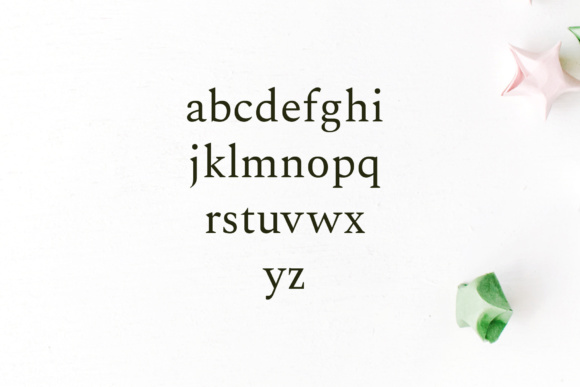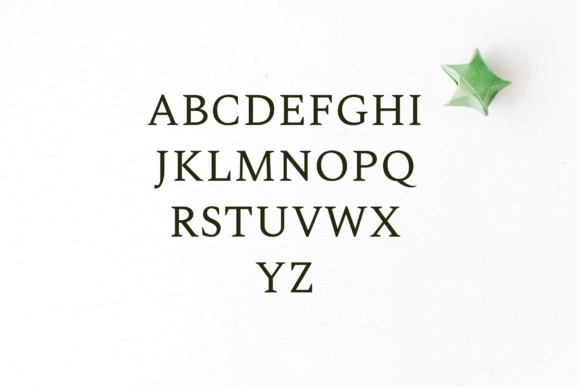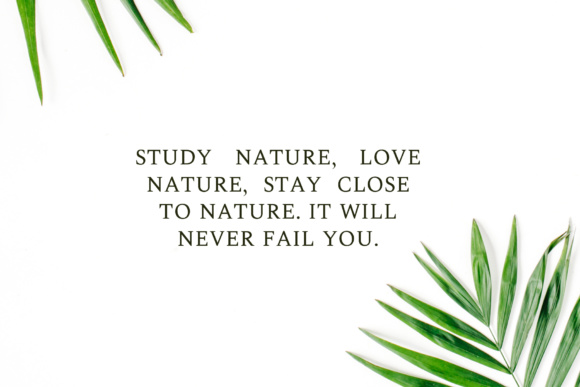
The Ethan Serif Family Pack: A Designer’s Dream Come True
I’ll never forget the time I was working on a logo design project for a high-end fashion brand. My client wanted a font that exuded elegance, sophistication, and a touch of modernity. I scoured the internet, tried countless fonts, but nothing seemed quite right. That was until I stumbled upon the Ethan Serif Family Pack. It was love at first sight! 💕
The Ethan Serif Family Pack is a decorative, beautiful serif font family that consists of 6 weights. It features a unique and modern look & feel, making it perfect for gorgeous logos & titles, layouts & content, or large & small scale. In this article, I’ll share my experience with this stunning font family, its features, and how to make the most of it in your designs.
- ✨ Unique and modern look & feel that sets it apart from other serif fonts
- ✅ 6 weights to choose from, ensuring versatility and flexibility
- 💯 Gorgeous in all caps with a wide-set spacing for a classy look
- 📚 Beautiful on its own in capital and lowercase letters for a timeless feel
While the Ethan Serif Family Pack is an excellent font family, there are a few things to keep in mind:
- ⚠️ Some users may find the font too ornate for certain projects, such as body text
The Ethan Serif Family Pack was designed with inspiration from classic serif fonts, but with a modern twist. The designer aimed to create a font family that would be both elegant and versatile, suitable for a wide range of design applications. The result is a font family that is both timeless and trendy.
| Font Name | Ethan Font |
| What is the Ethan Serif Family Pack? | A decorative, beautiful serif font family consisting of 6 weights, perfect for logos, titles, and content. |
| Is the Ethan Serif Family Pack suitable for body text? | While it’s possible to use it for body text, it’s recommended for headlines and titles due to its ornate nature. |